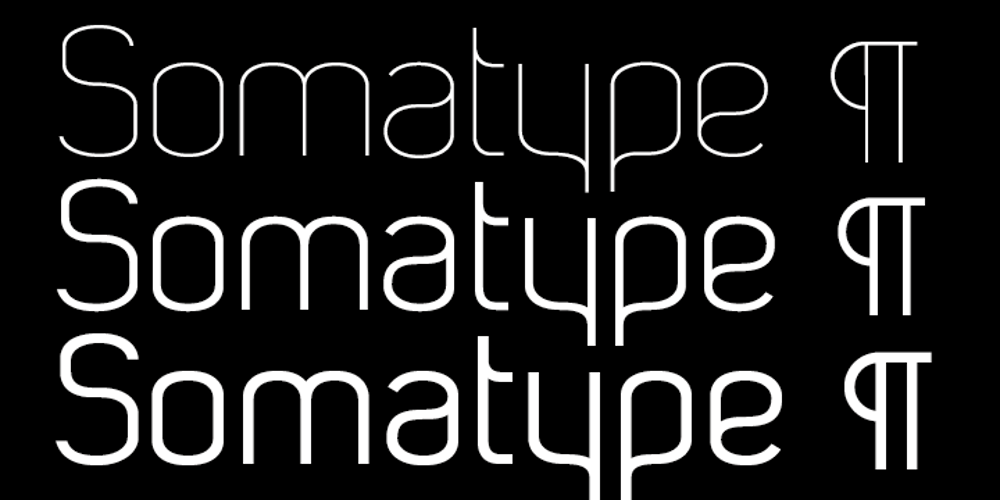
Somatype Font Family was designed by James Marsh and published by ArtyType. Somatype contains 5 styles and family package options. As with any attempt at a new typeface, you want to create something different. A difficult task as most legible fonts are based on something previous. Somatype isn’t actually based on any particular font but it has unavoidable similarities to others. The important difference here being the distinctive quirk of the connection points going opposite to the norm; exemplified best by the lower case d & e. Once devised, the unique characteristic was applied wherever possible, keeping the rest of the characters in a sympathetic, rounded style. I first designed this in the light weight version, seeing it working best as a large open display font for magazines etc. but realized it would be too light for body copy at small scale, so, medium and bold weights were created to resolve that issue. Incidentally, the word ‘somatype’ literally means body-type.